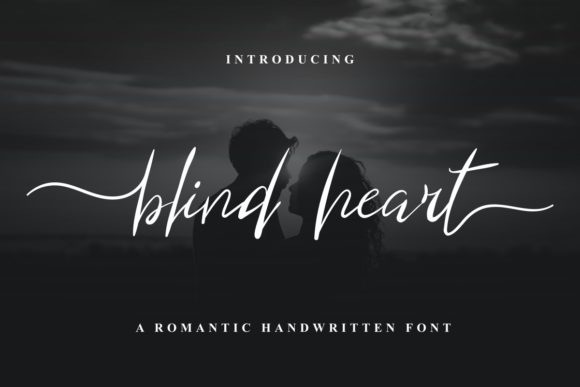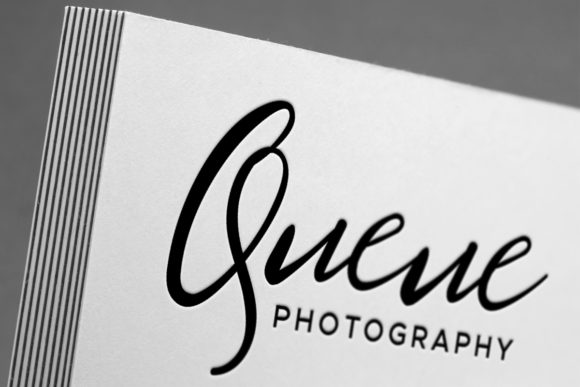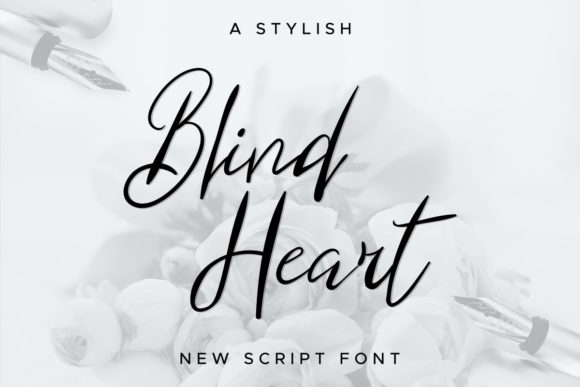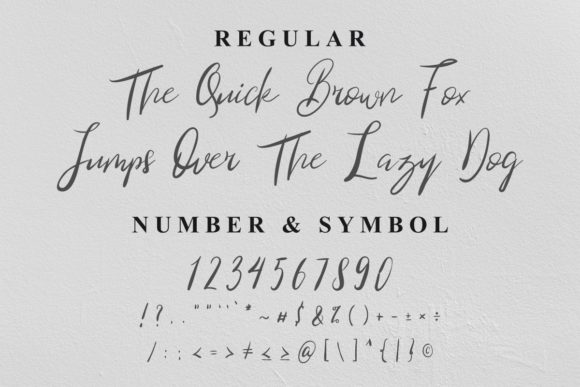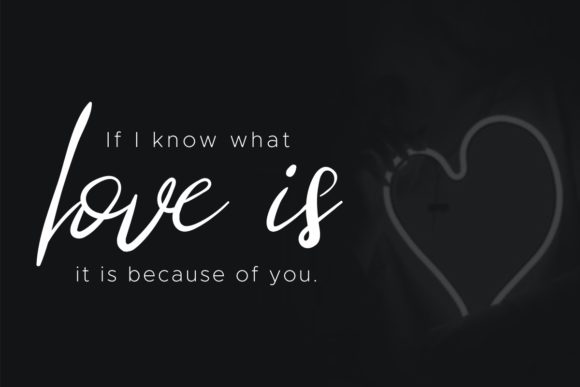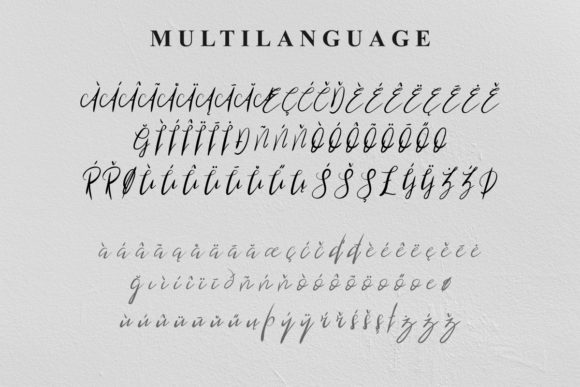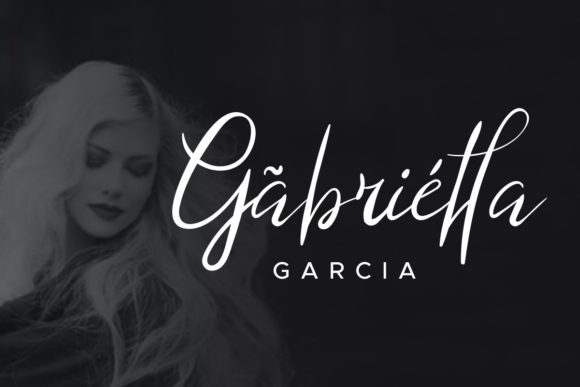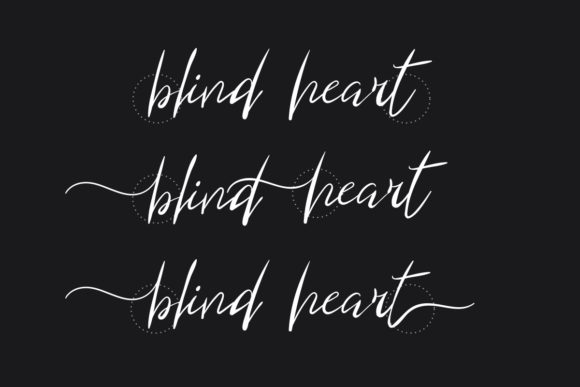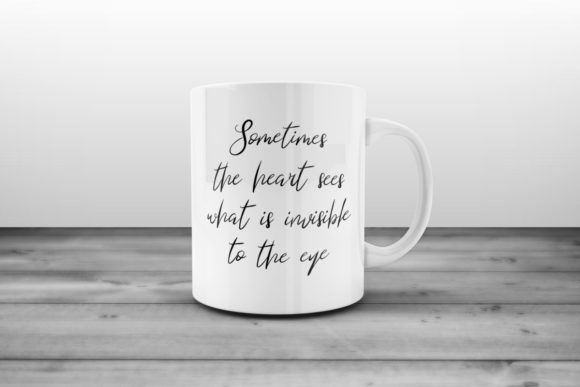
Blind Heart Font
About Blind Heart Font
This handwritten font has a rustic, adventurous feel – the energetic flow of this script is sure to give your next design an air of refined authenticity.